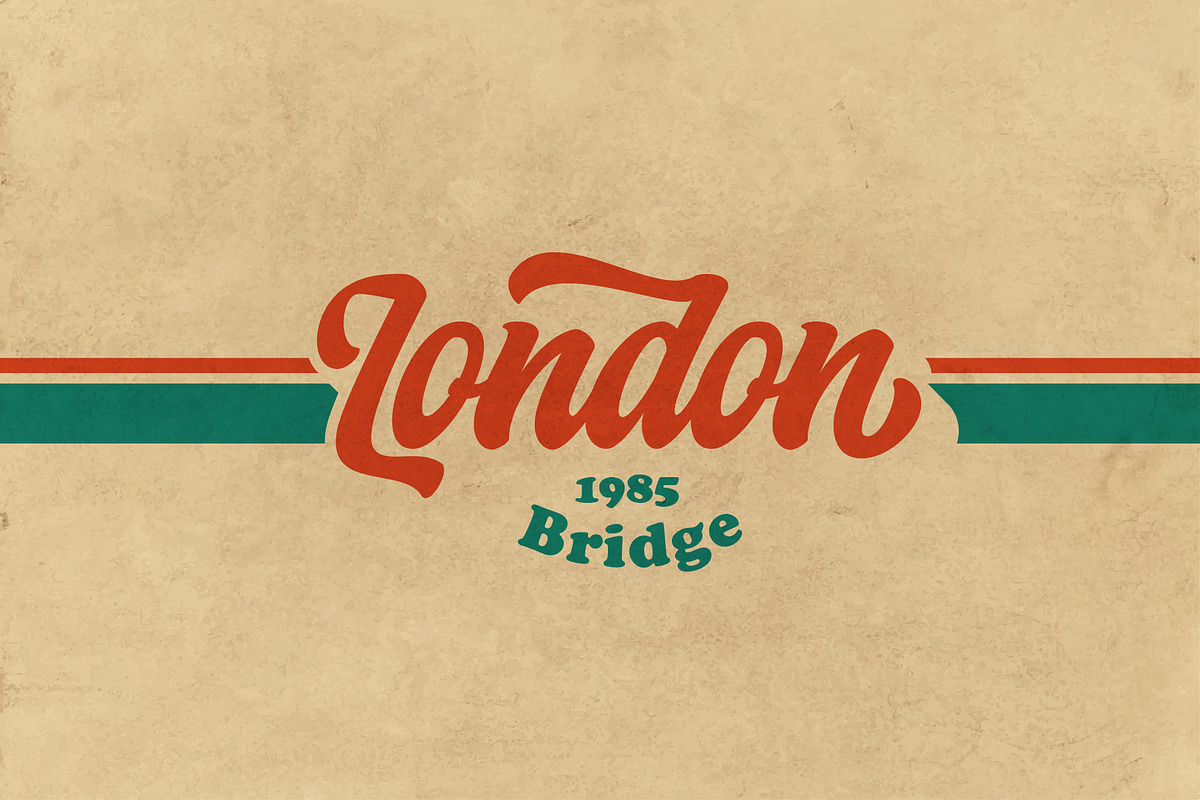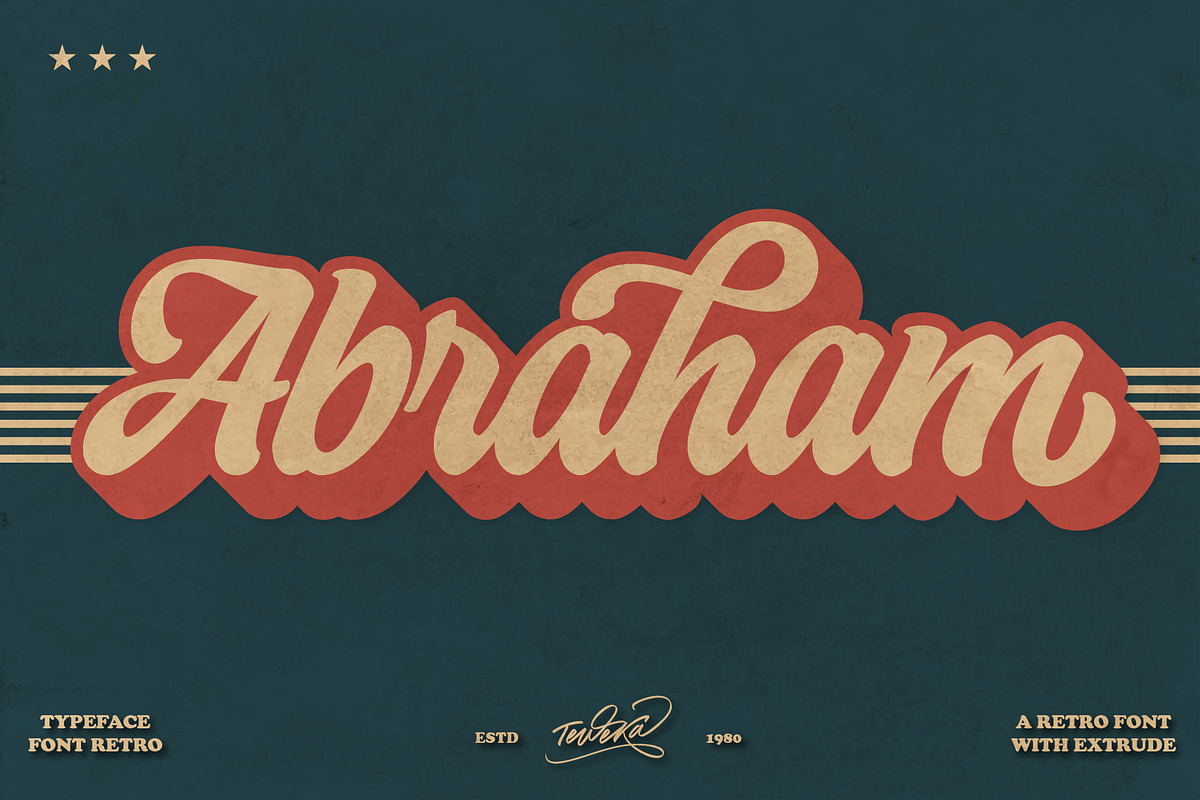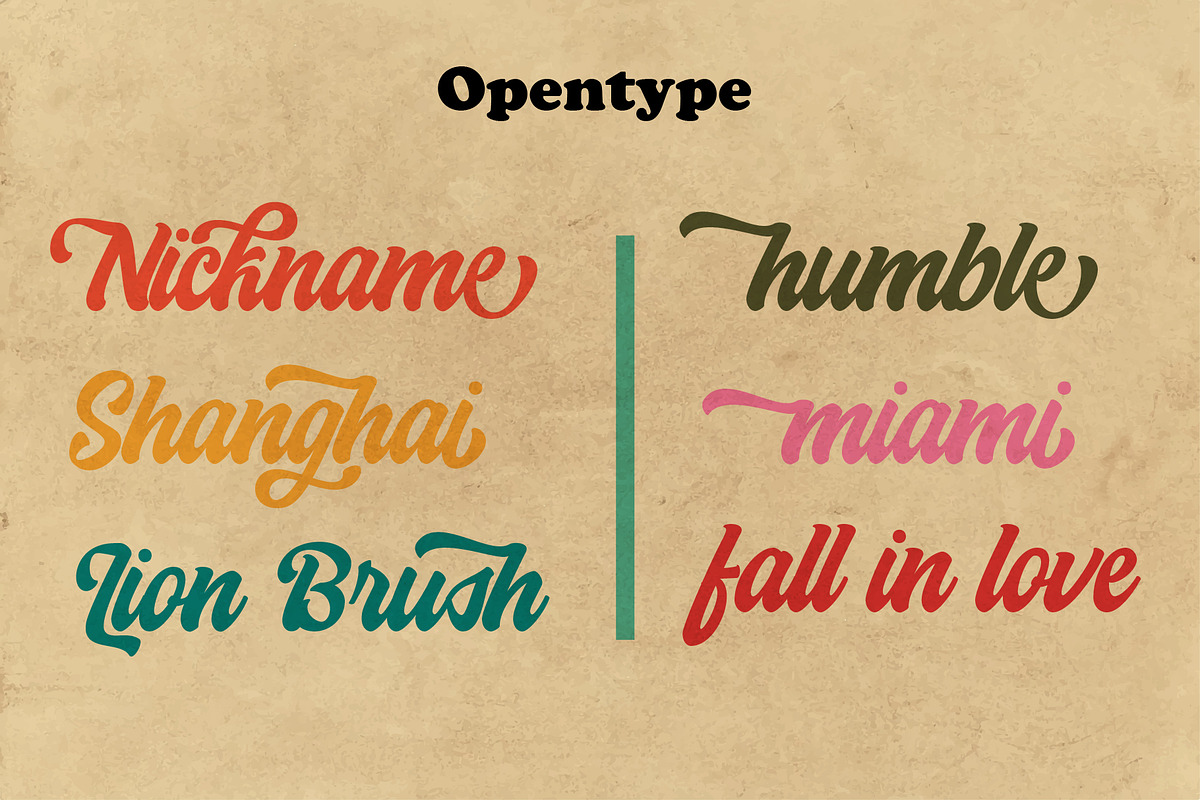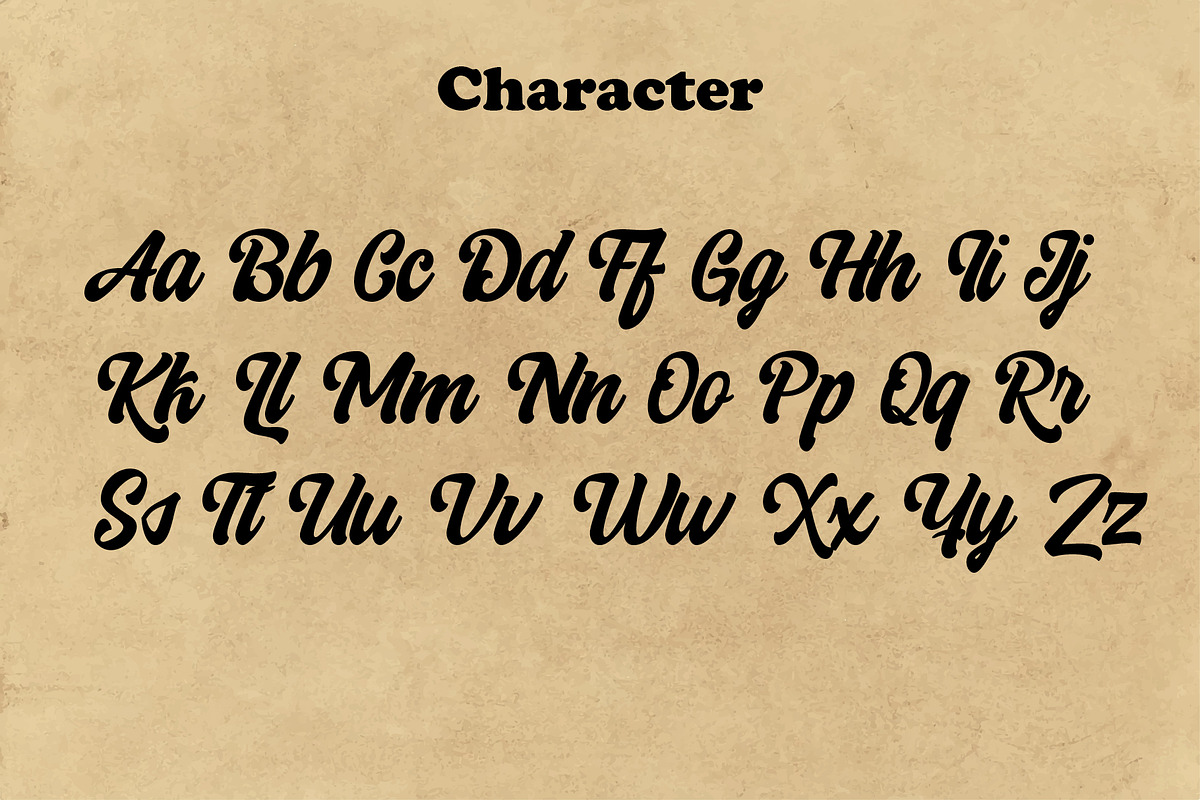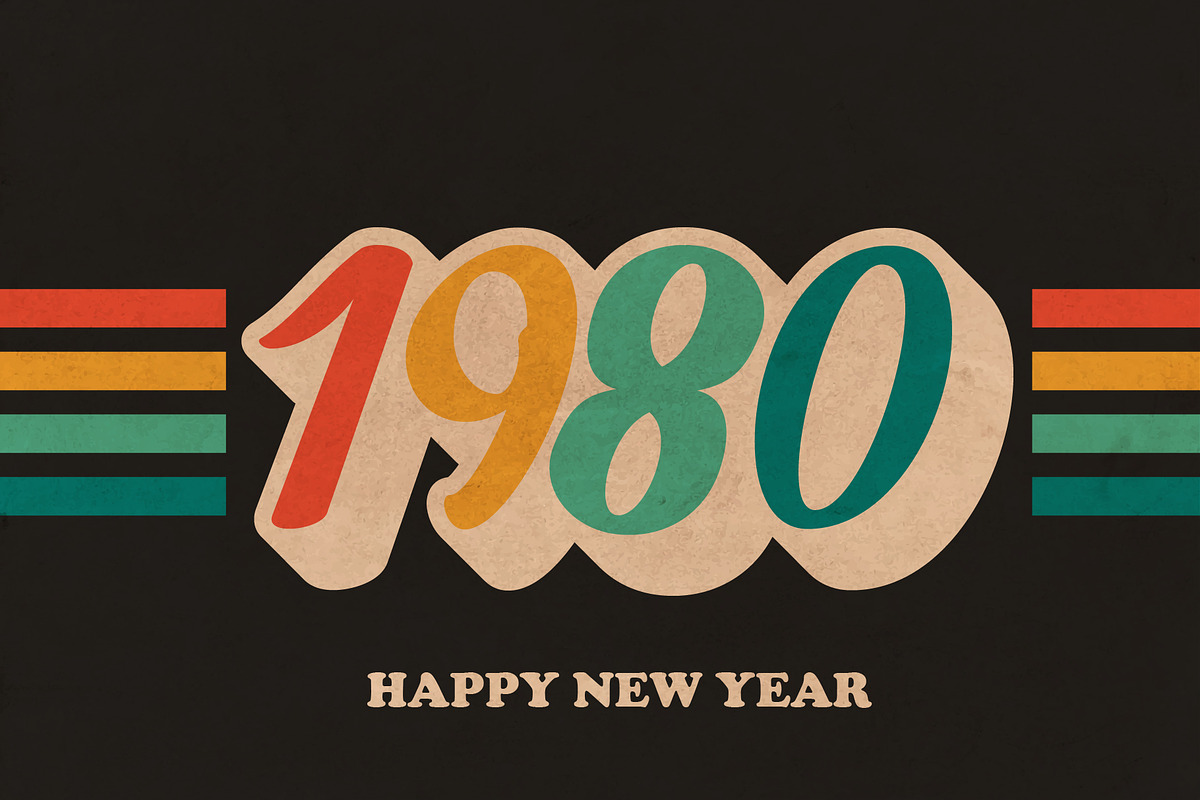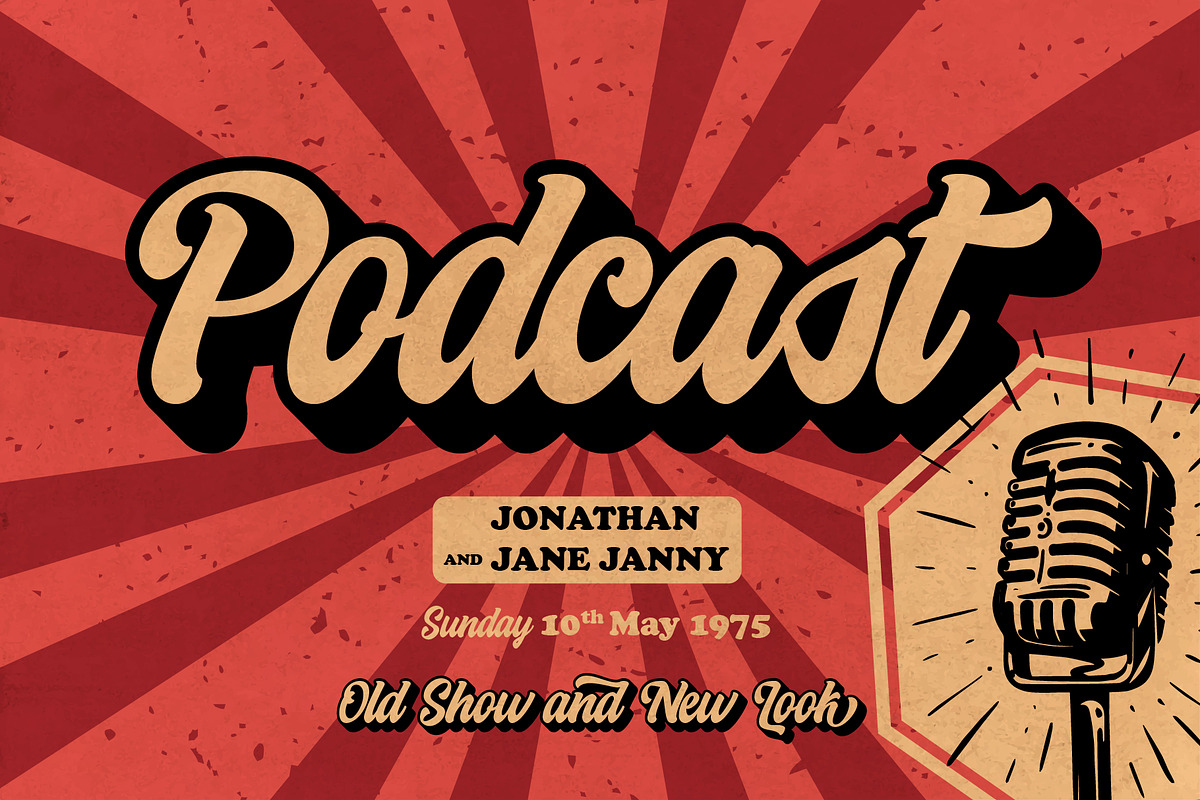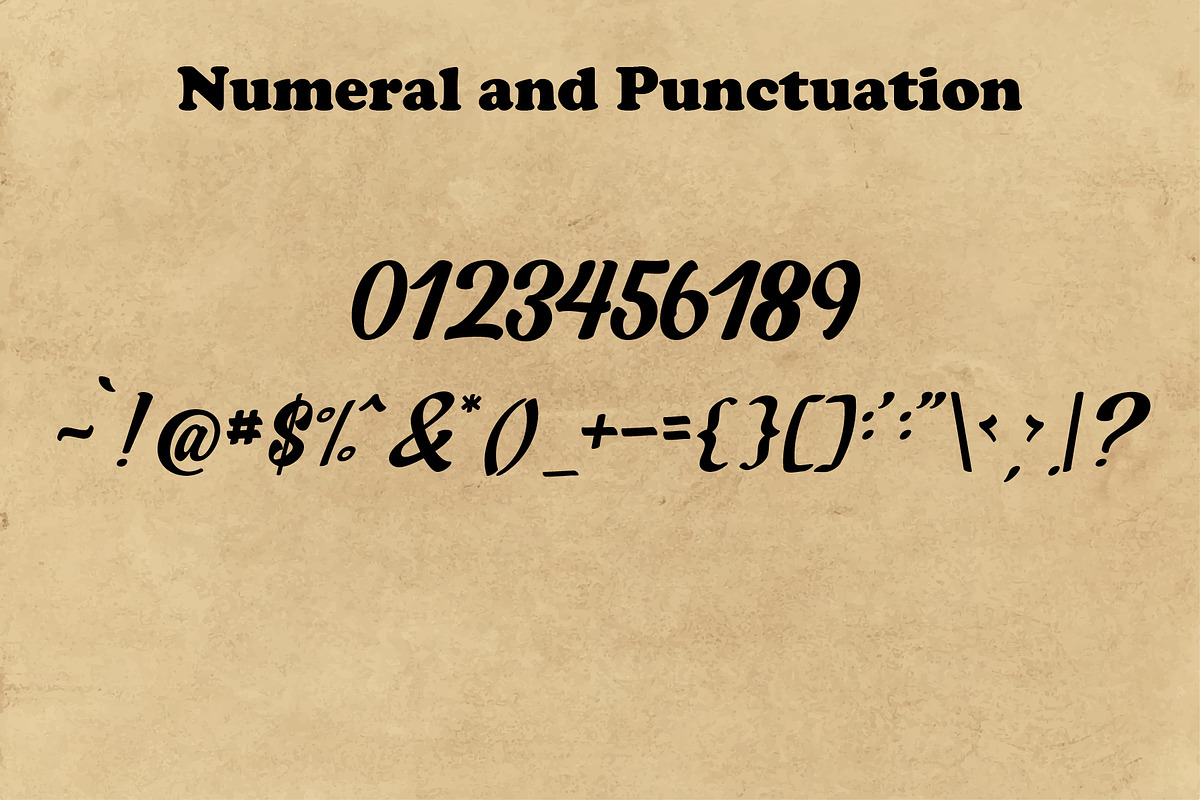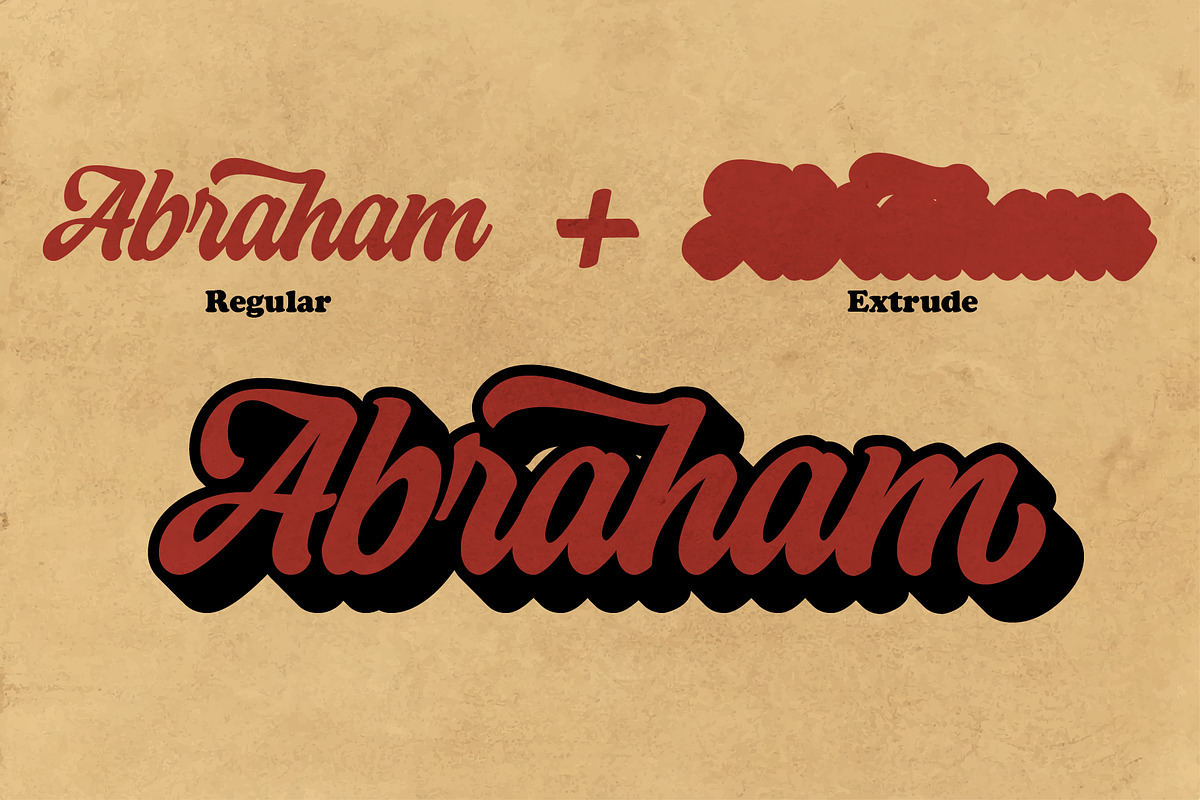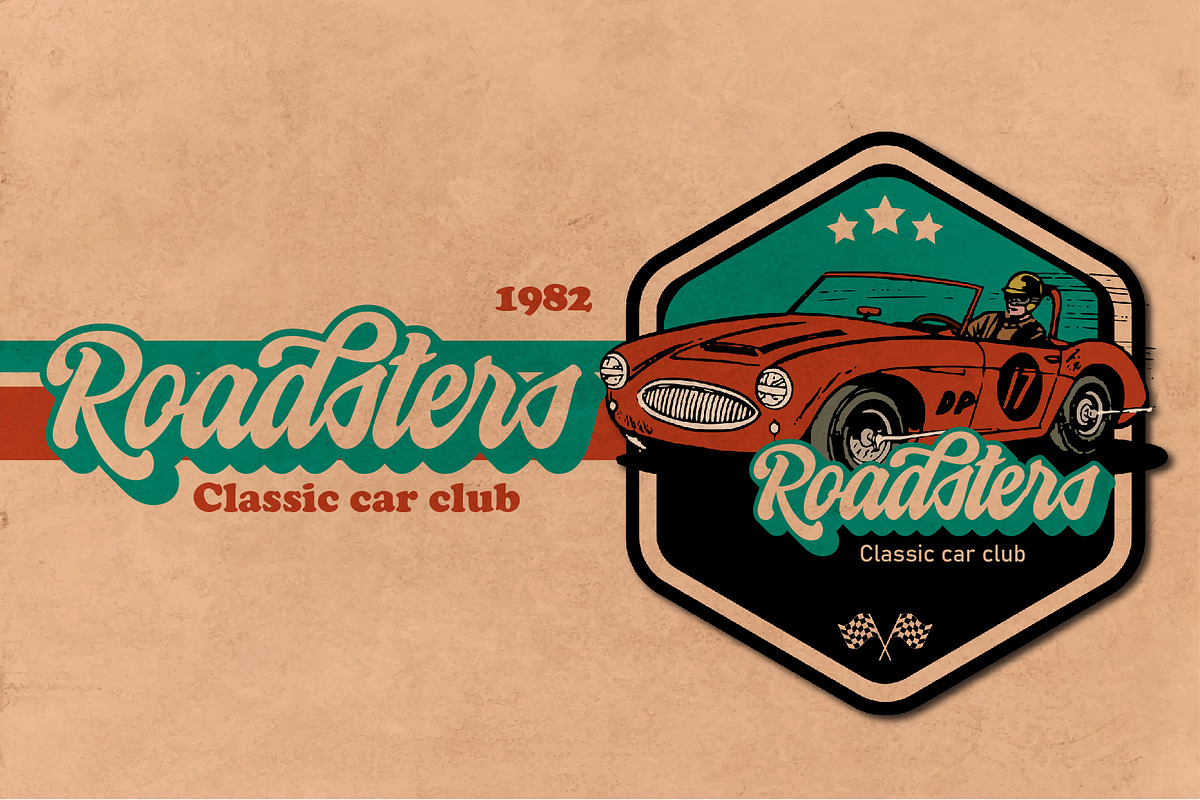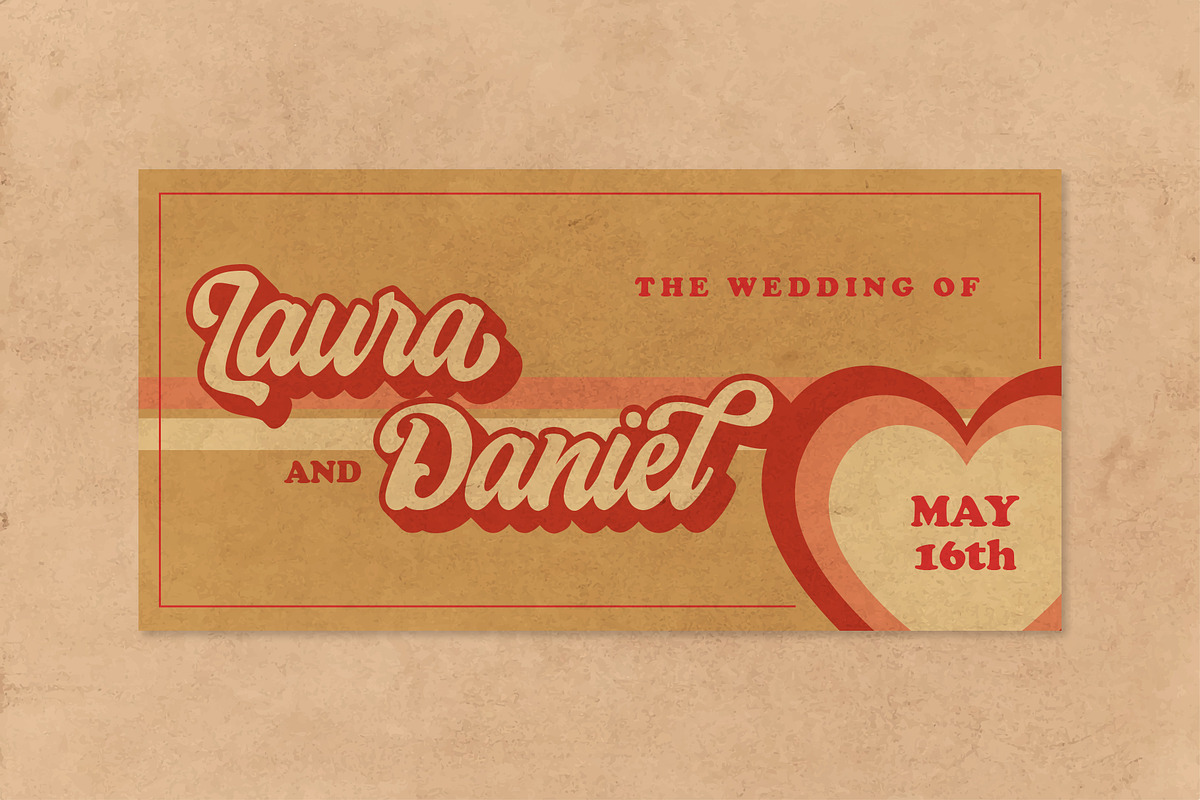
Abraham
Introducing The Abraham Font, This Font is carefully crafted and balanced on script typefaces with a unique Retro style. Also with Extrude Version. You can use them as logos, badges, emblems, packaging, titles, posters, t-shirts, greeting cards, wedding invitations, etc.
Alternative characters in this font are divided into several OpenType features such as Stylistic Alternates, Stylistic Sets, and Ligatures. OpenType features can be accessed using OpenType programs such as Adobe Illustrator, Adobe Photoshop, and Adobe InDesign.